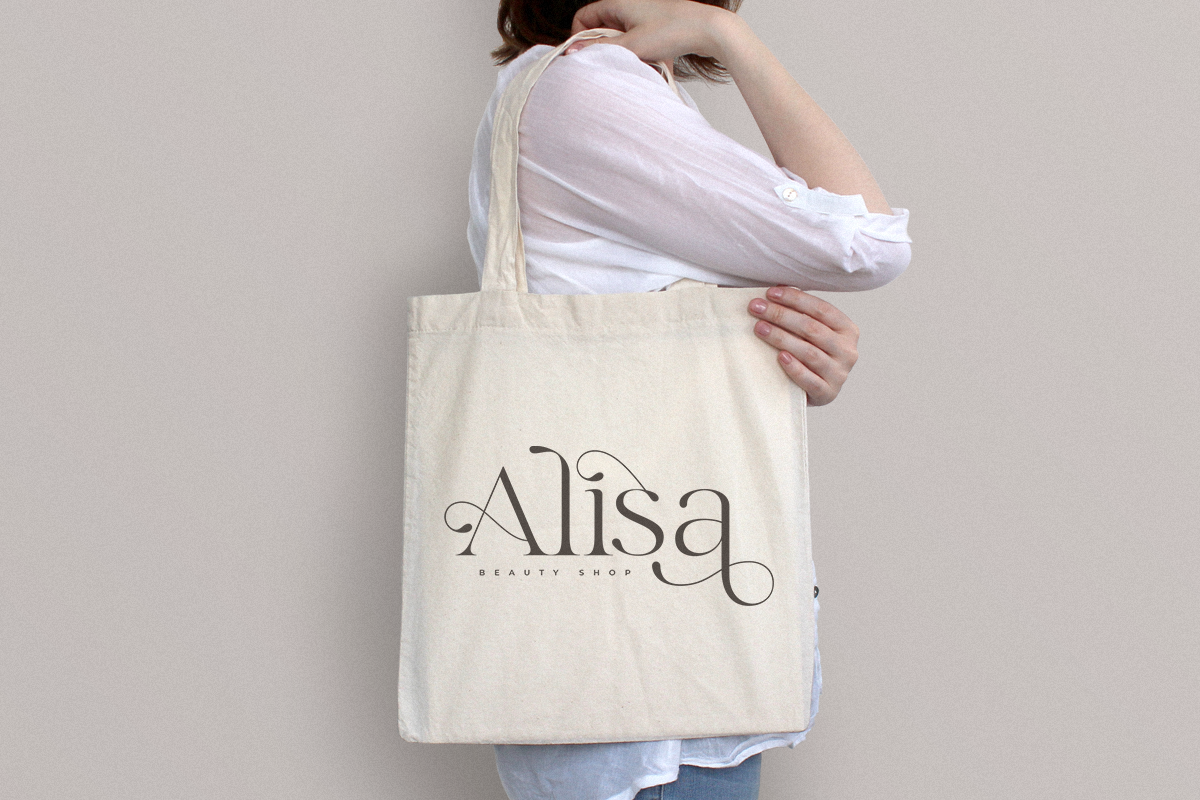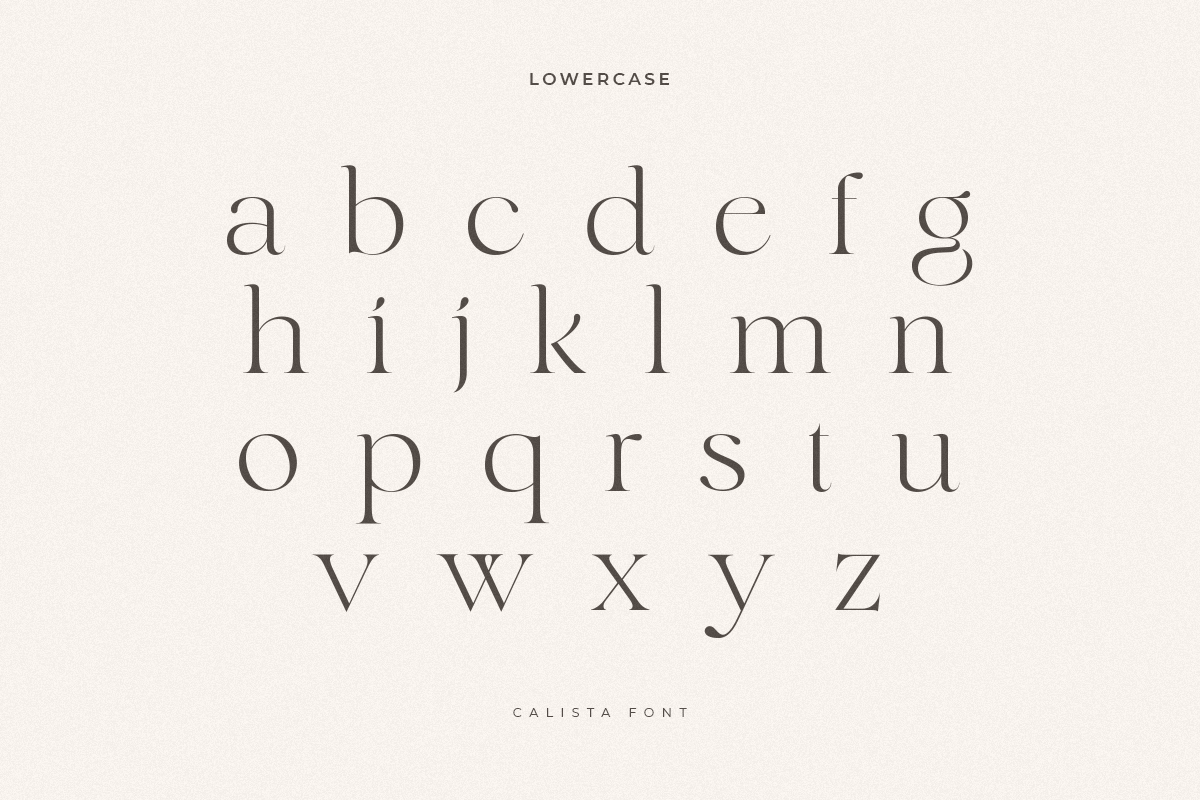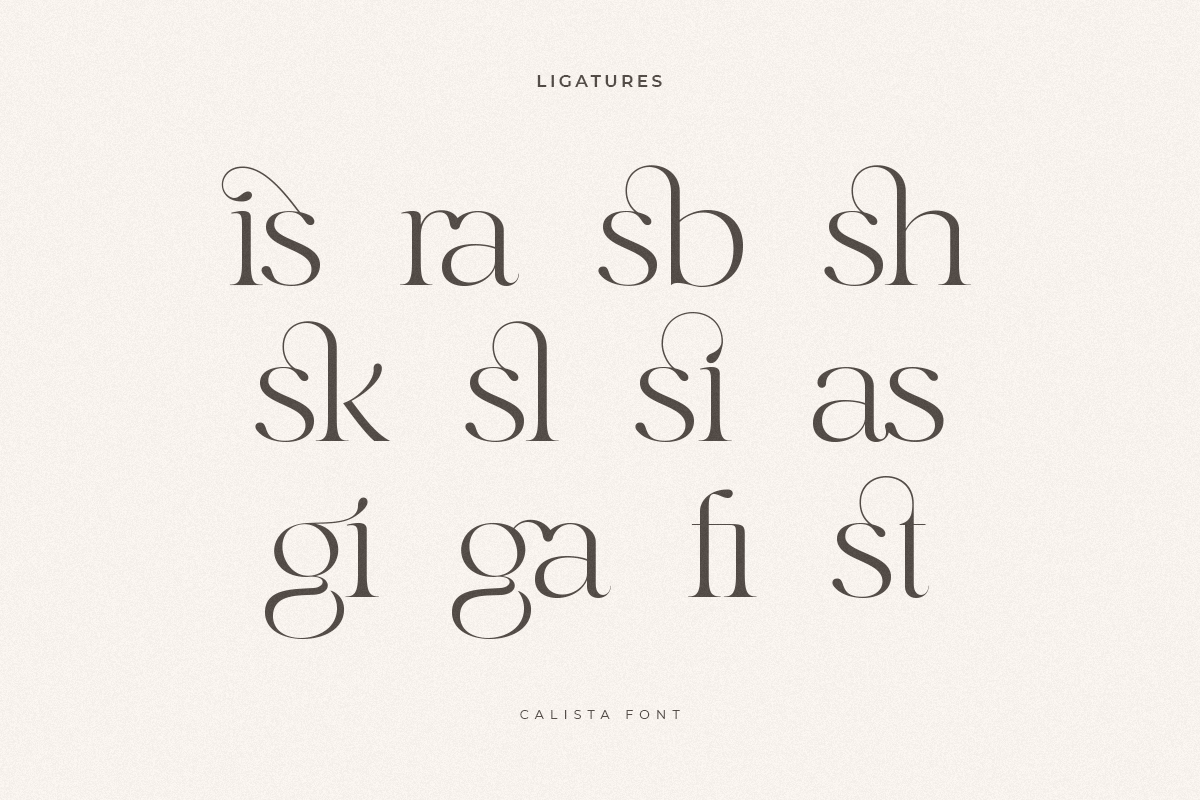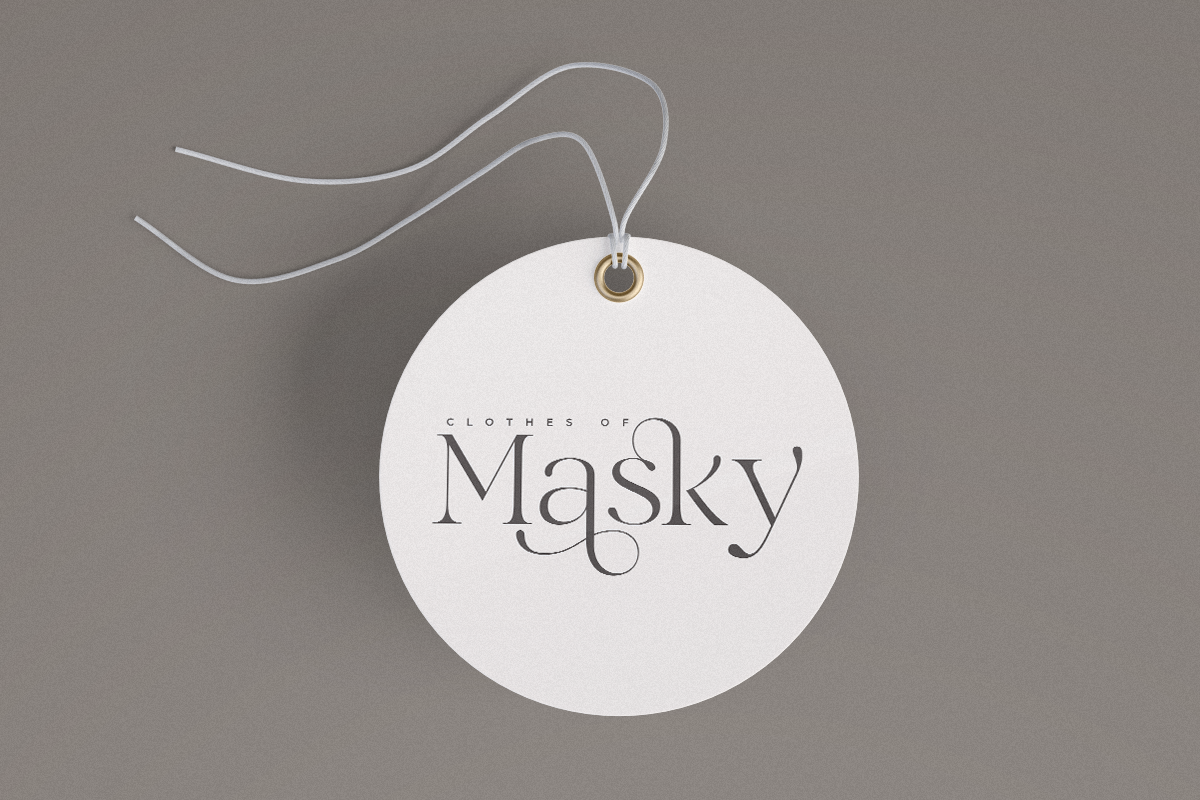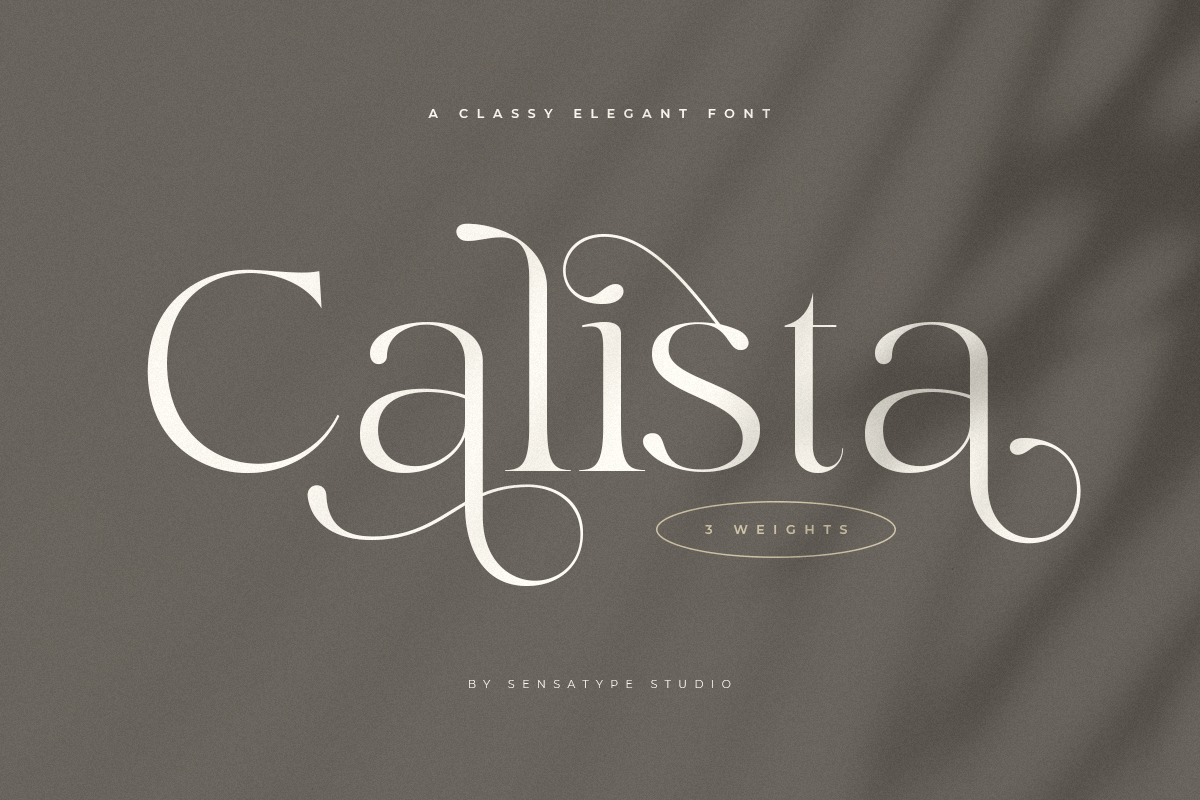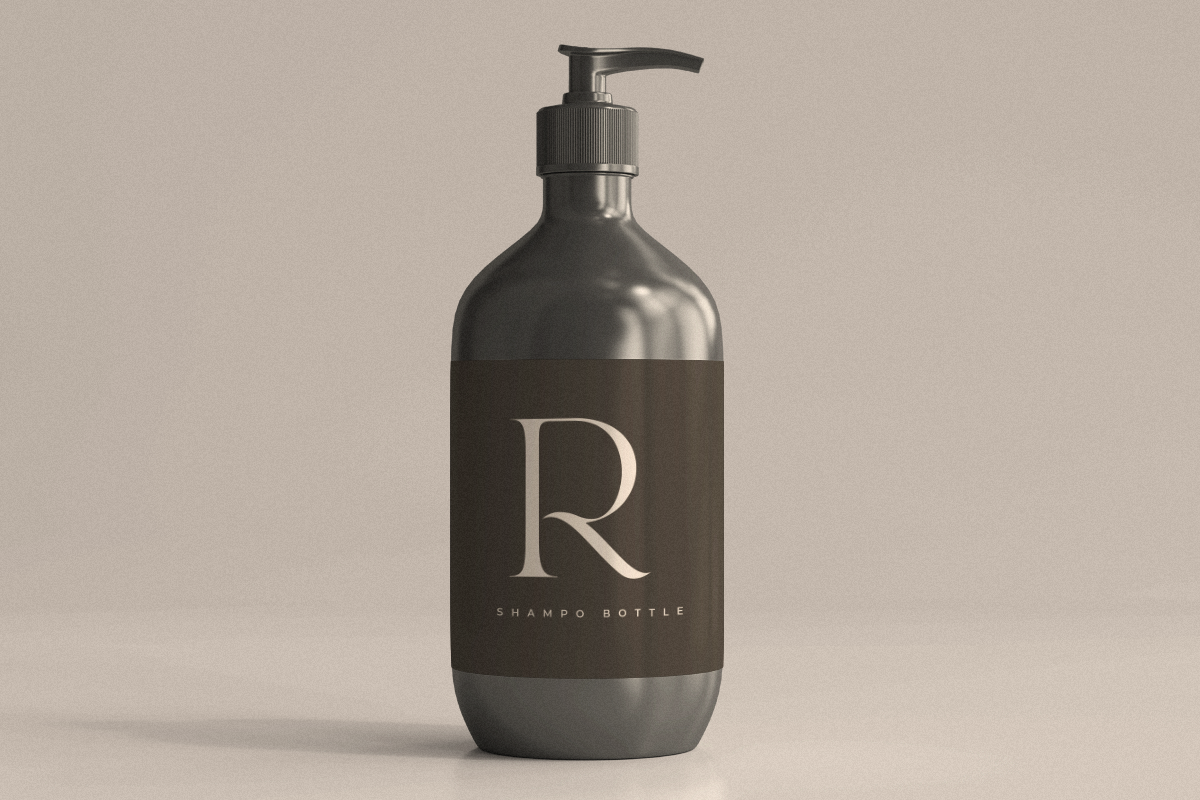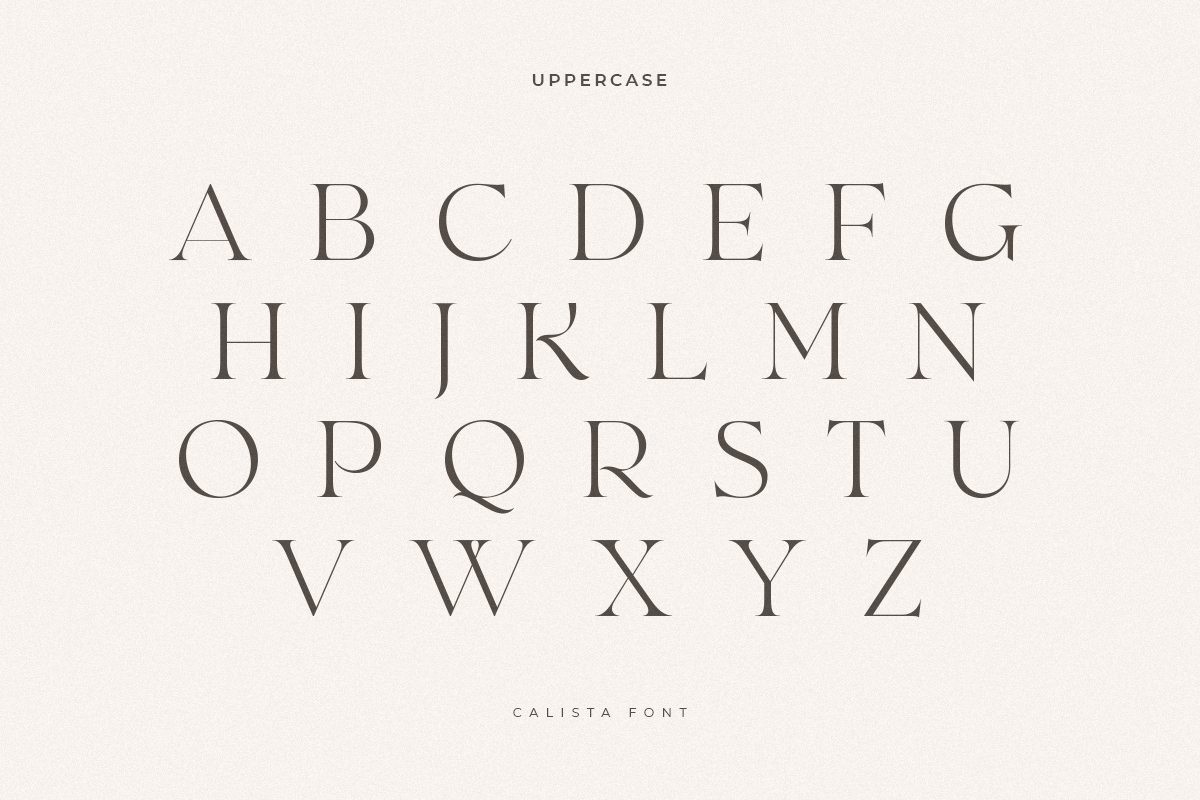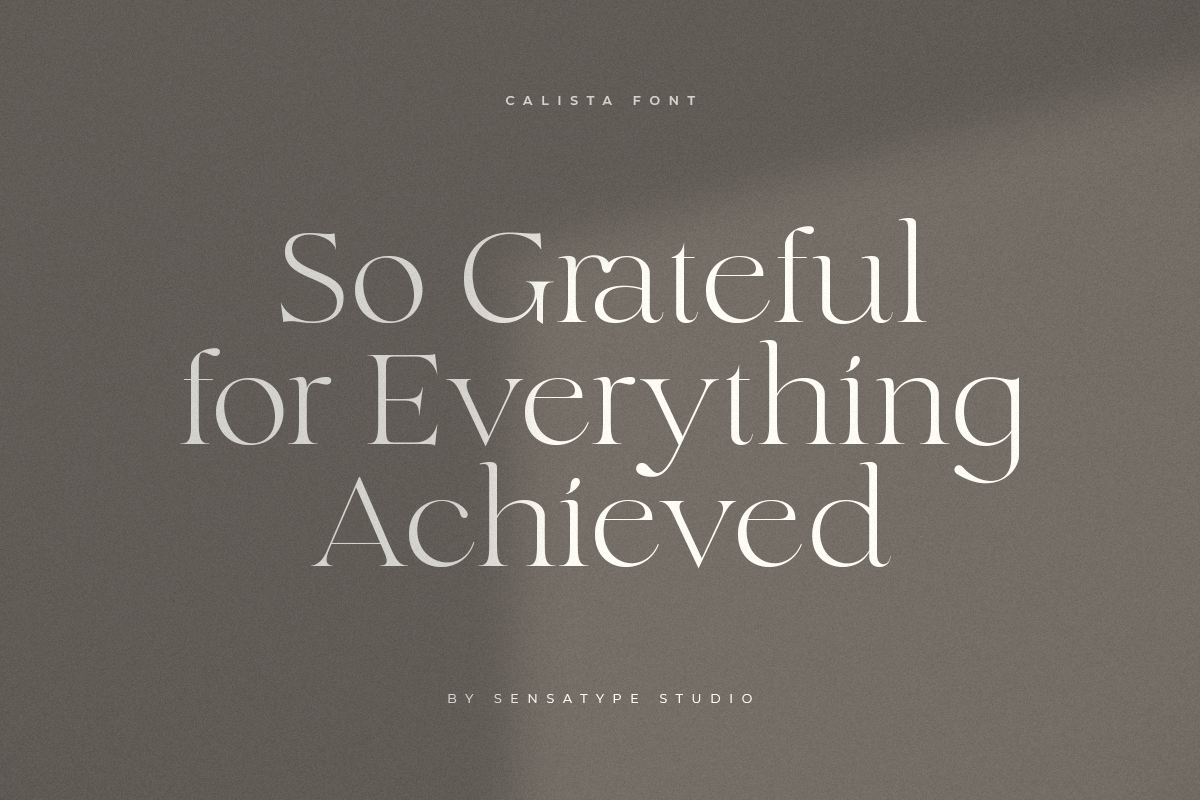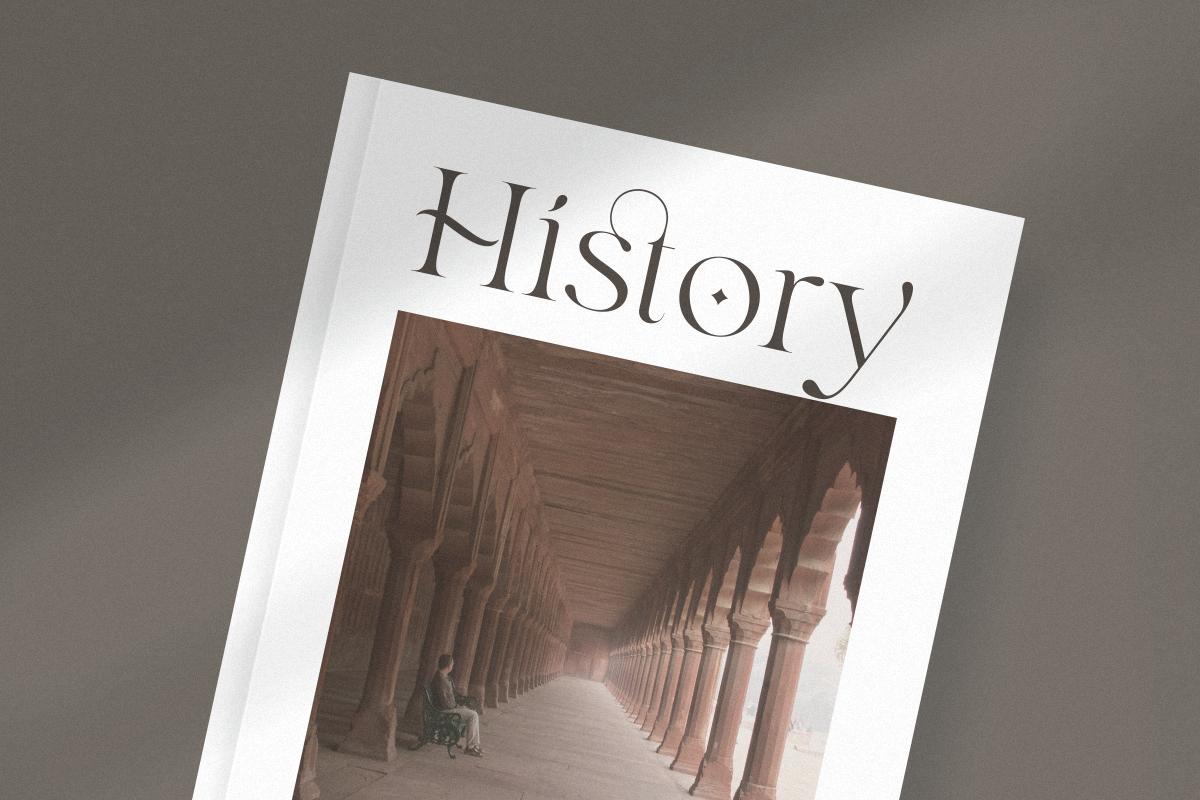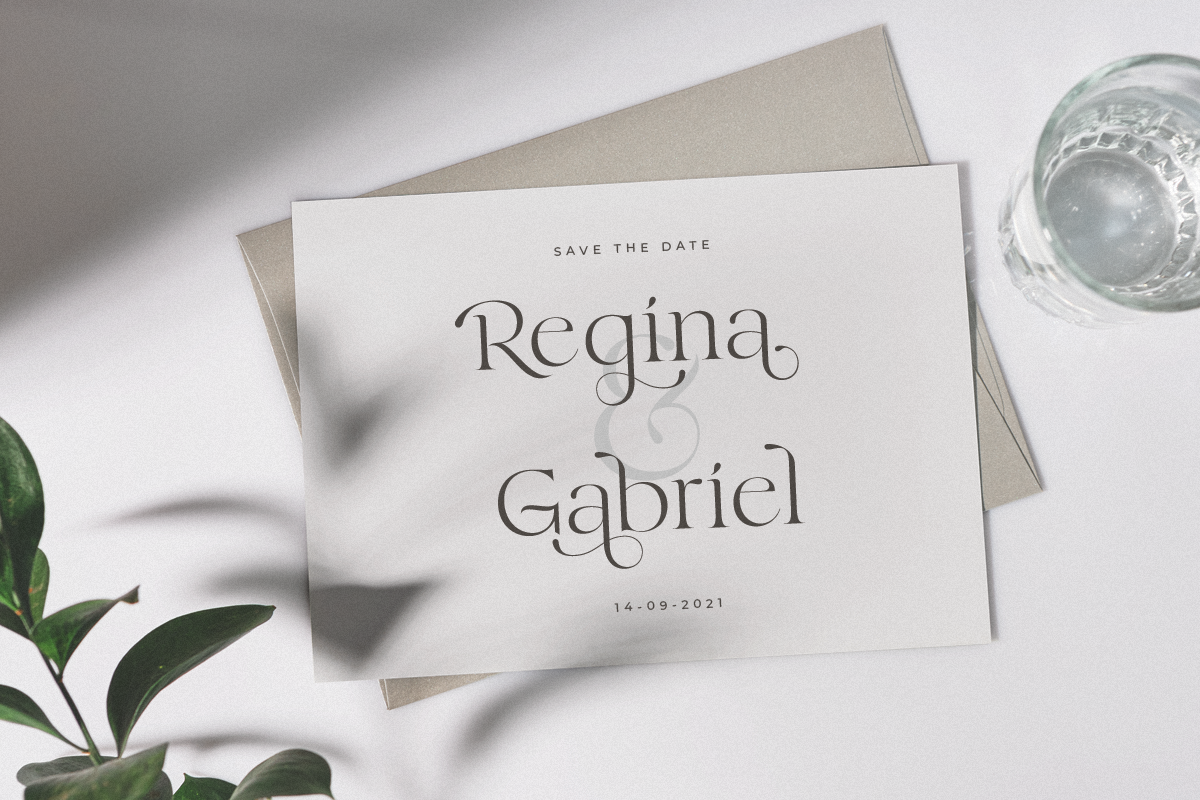
Calista is a A New Classy Elegant Serif Typeface
A serif that we created special for elegant branding needs, with extra ligature and alternates in unique shape will be ready to add value of your brand. It so nice to leverage designer or product owner that need solutions to make their design look more classy and modern. And specially for Calista font, We prepared any ligatures, and any alternate characters to help you create unlimited variations for your creative needs.
Calista sans serif font ready with:
- Any options to get creative variations (combination of Alternate and Ligatures)
- Ready 3 Weights (Light, Regular, and Bold)
- Ready with Lowercase and Uppercase characters